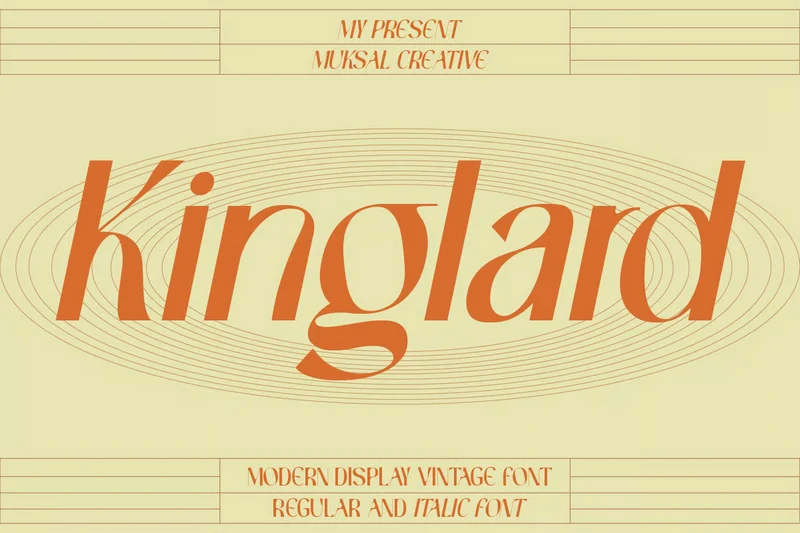
Kinglard
Kinglard is a bold serif display font that combines modern precision with a touch of vintage industrial style. With clean lines, strong geometry, and subtle retro influence, it’s designed to make a statement in headlines, logos, posters, and branding. Perfect for projects that need confidence, clarity, and a timeless modern edge.